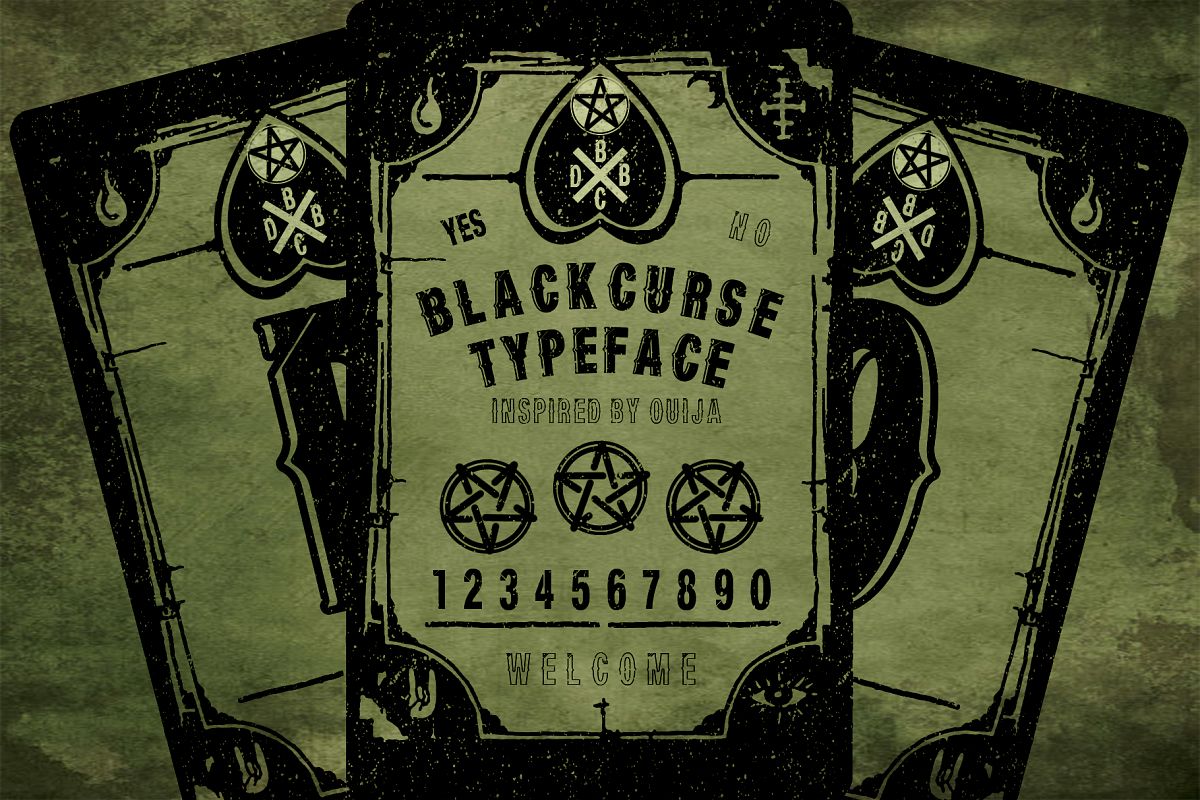
BLACKCURSE FONT
BlackcurseII
BlackcurseI
BlackcurseIII
• Powerful / Dynamic / vintage -
Blackcurse is a strong font and sophisticated sans serif. Inspired by the ouija board, it's solid uncompromising style is felt through the controlled letterforms and retro or vintage touches. A balance of hard lines and smooth curves. Each font in the family can stand on its own, dynamic and authoritative in their own right.Blackcurse clean Blackcurse line Blackcurse mixing Four weights / Outlines / Numbers & PunctuationThanks for having a peek at Blackcurse. After many months I'm very proud to finally release it, I hope you enjoy it and feel free to take it for a spin below!As always, if you have any questions just send me a message!cursedb_